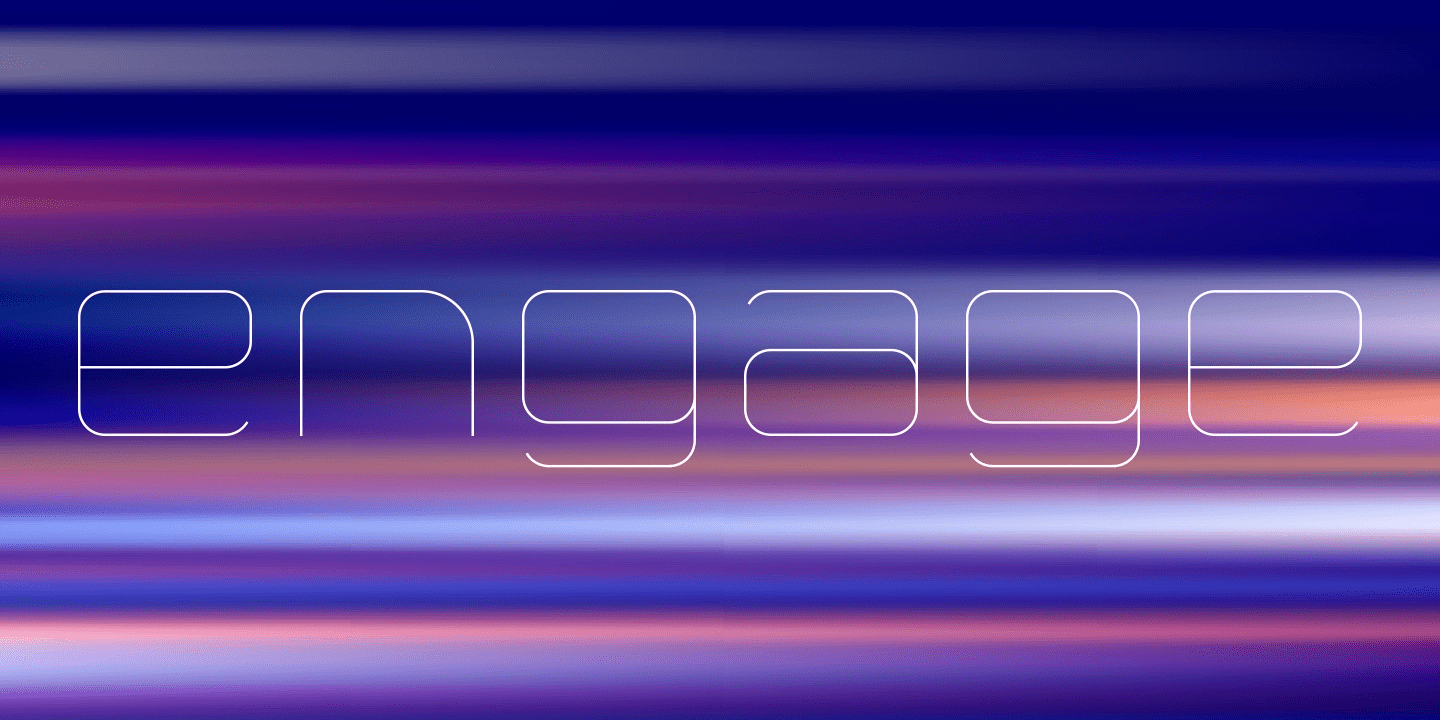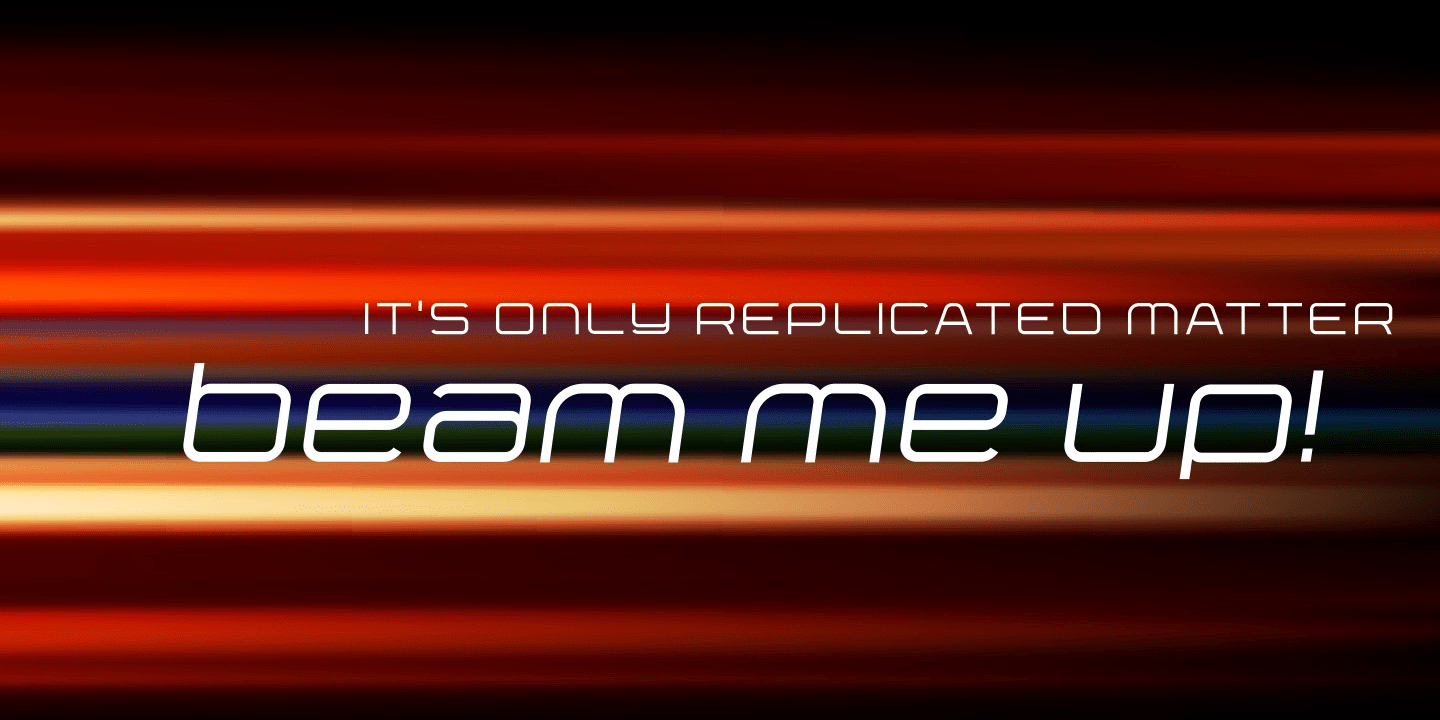
Yumi
About Yumi
Did you ever wanna just do something thin and curvy? I did. So I made Yumi. I wanted to create something smooth, stream-lined, with a bit of curviness. Not too much that it would become presumptuous, but just enough to solve the movement through this…